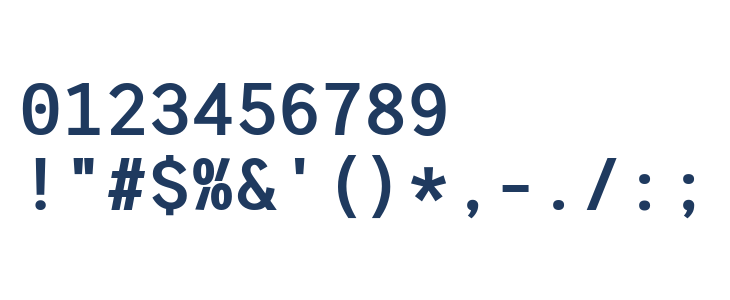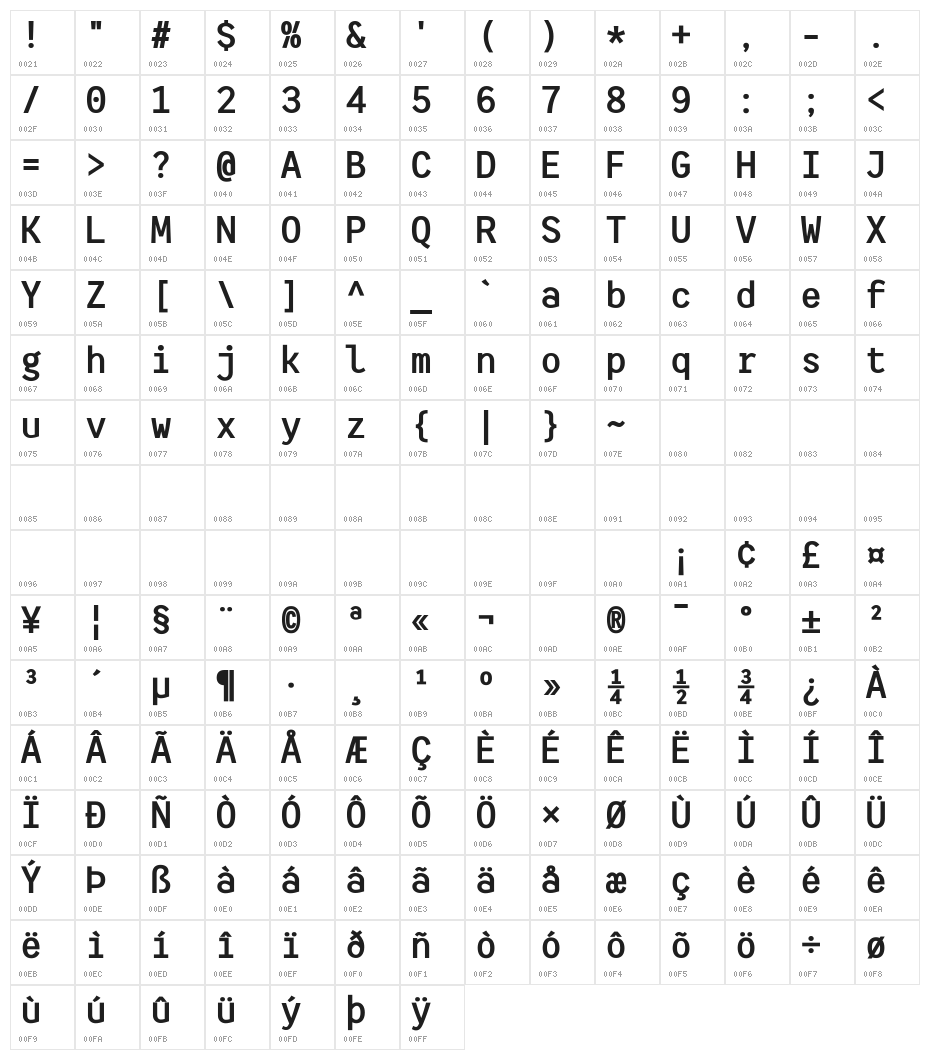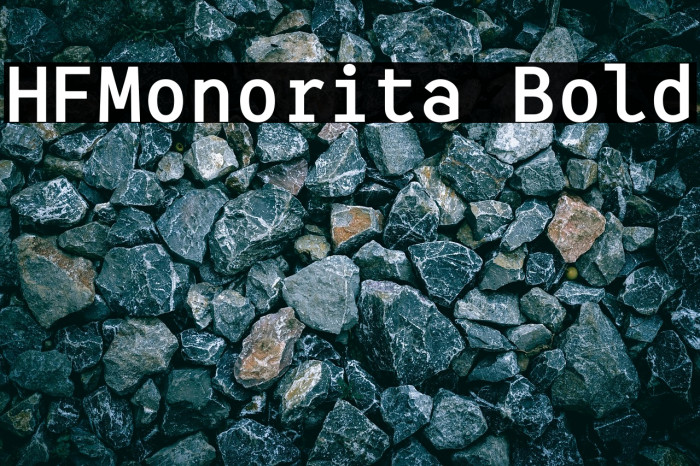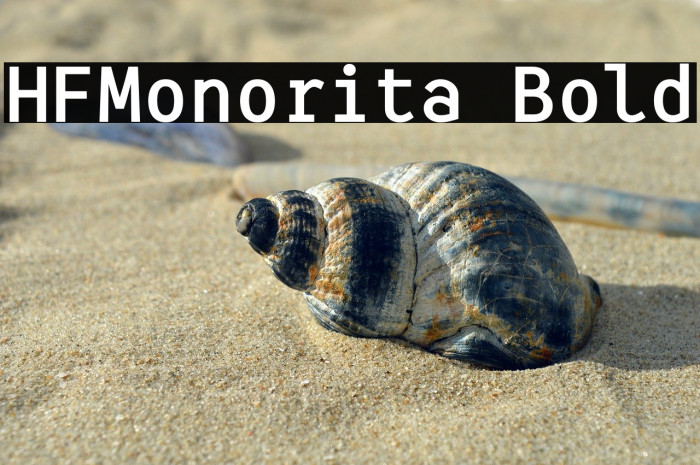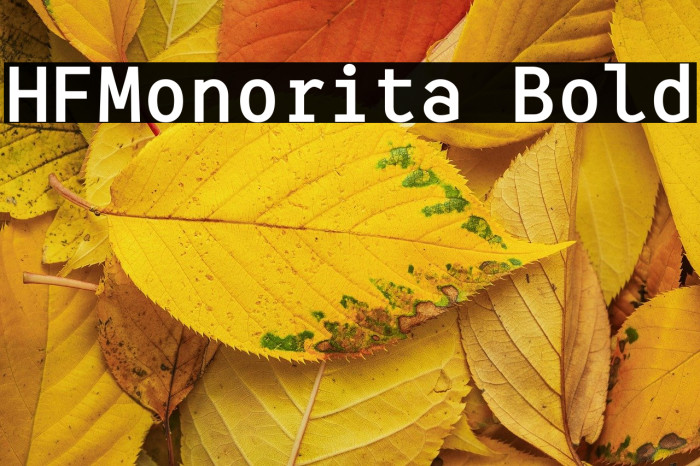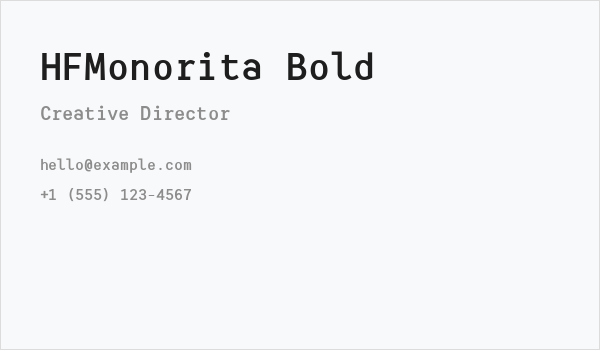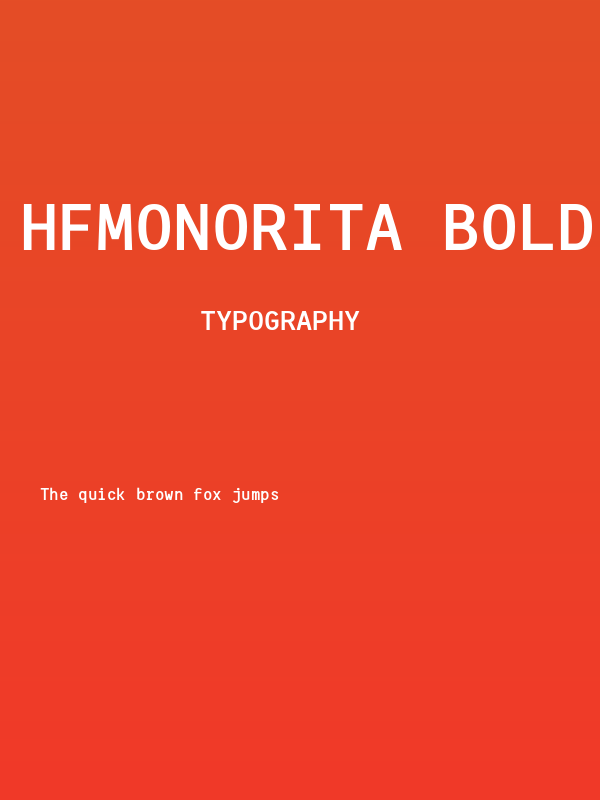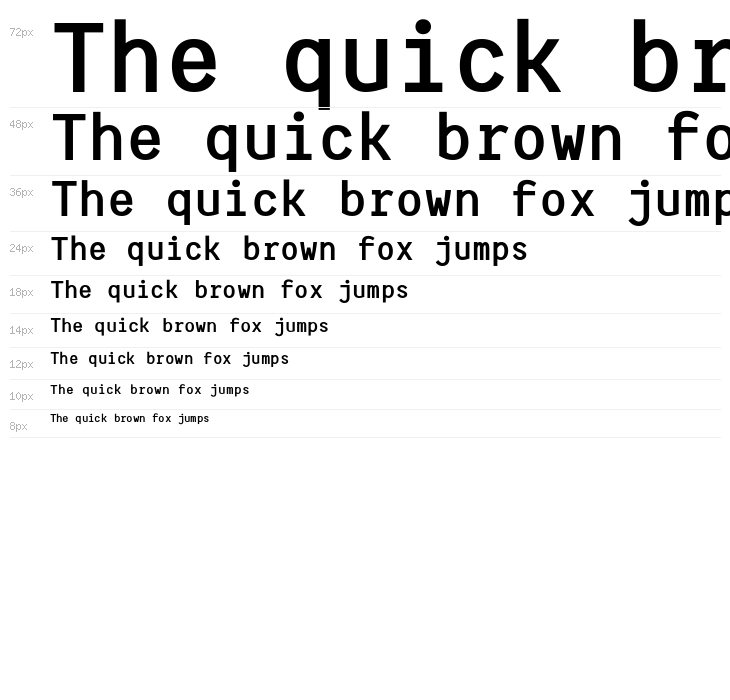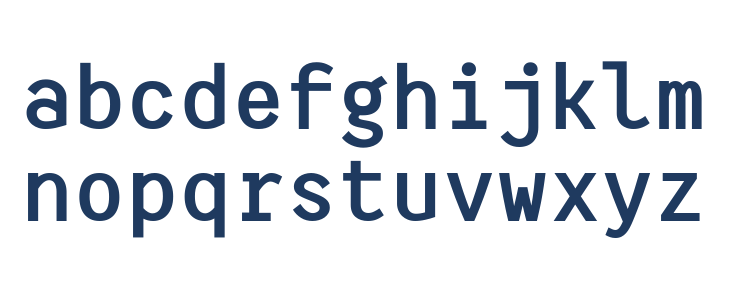
HFMonorita Bold Font
HFMonorita Bold Description
This typeface features a clean, modern design with monospaced characters, ensuring uniformity in width across all letters and numbers. The bold weight enhances its readability and impact, making it suitable for both digital and print media. Its geometric shapes and consistent stroke widths provide a contemporary feel, while the absence of serifs contributes to its sleek and uncluttered appearance. The font maintains a balanced character spacing, which aids in legibility, especially in coding environments or tabular data presentations. Its versatility is evident in its ability to convey professionalism and clarity.
| Use Case | Coding, Technical documentation, Data tables |
| Proposed Projects | Ideal for coding, technical documentation, data tables, and any project requiring clear, uniform text presentation. |